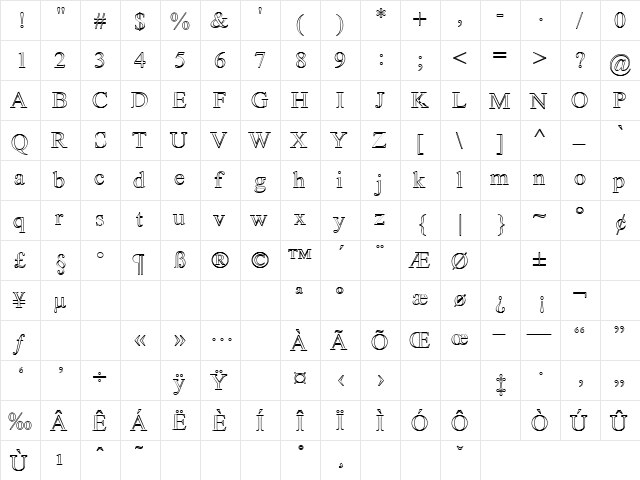
LikeTimesNewRomanHollow Regular
Design Context for LikeTimesNewRomanHollow Typeface
LikeTimesNewRomanHollow is a composed and adaptable typeface that performs quietly and consistently across a wide range of design contexts.
Pro Tip: Use LikeTimesNewRomanHollow in both headline and body roles to test its range before committing to a single application.